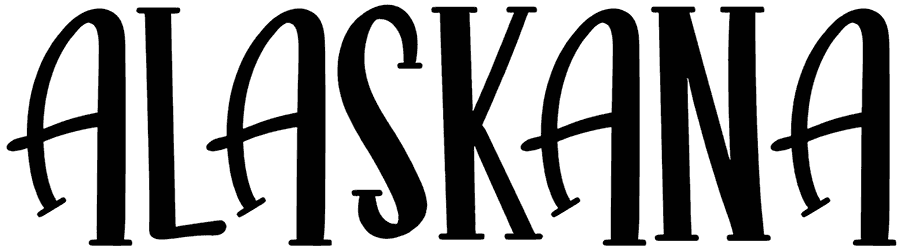
Alaskana Font
Why are you worried when you have access to our rich archive and enjoy a breathtaking fancy font such as Alaskana that carries a sense of softness, innovation, and professionalism? You can try it on posters, business cards, flyers, and greeting cards to boost the quality of your graphic content.